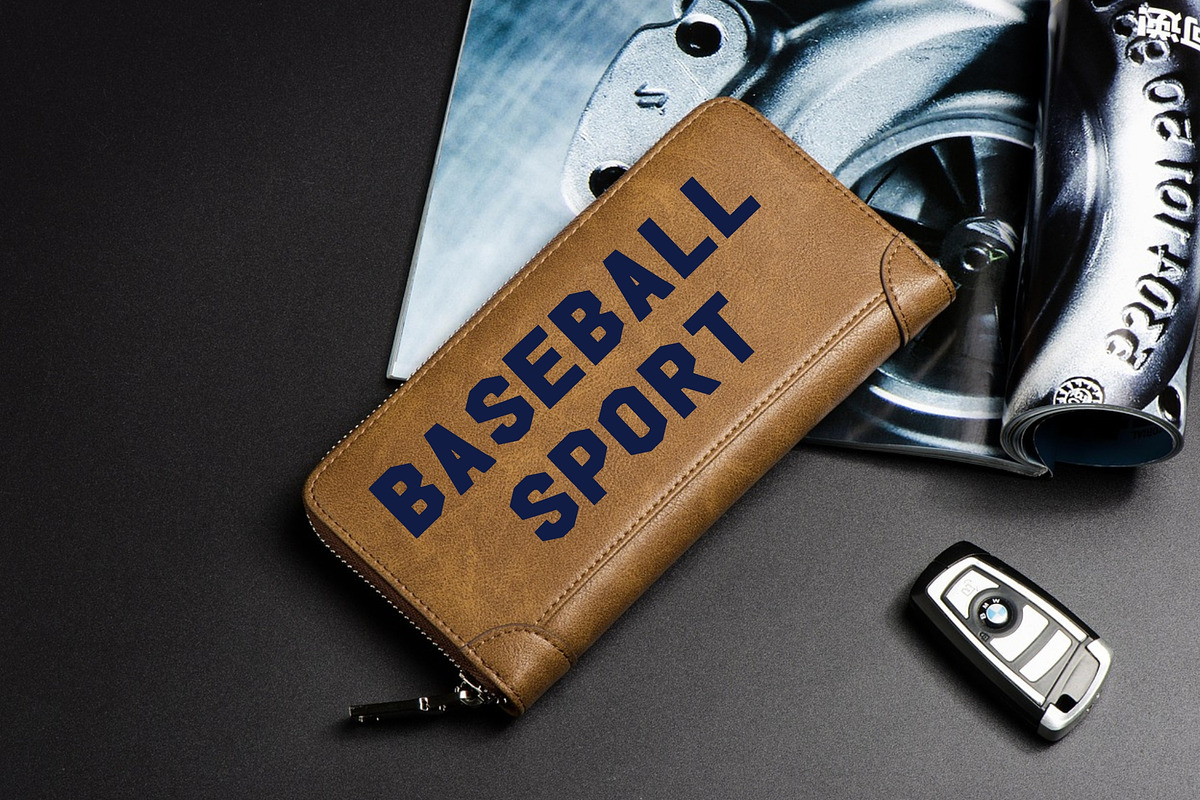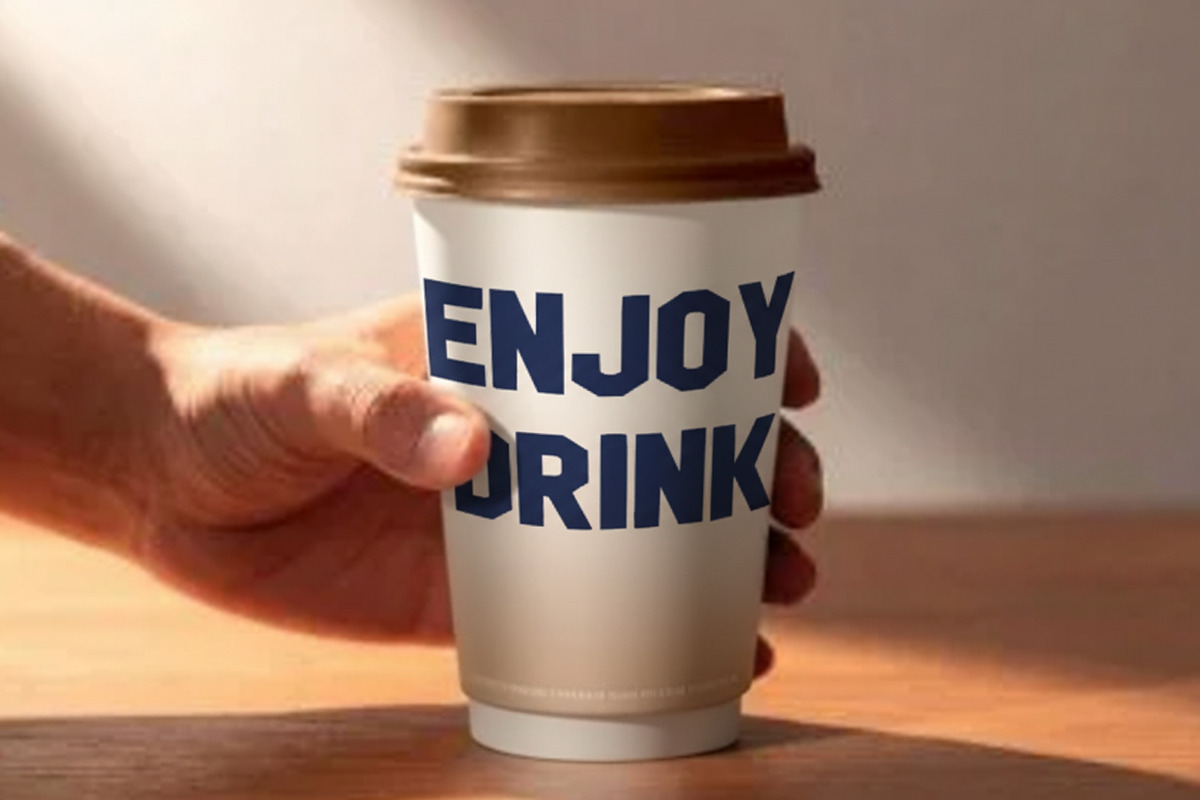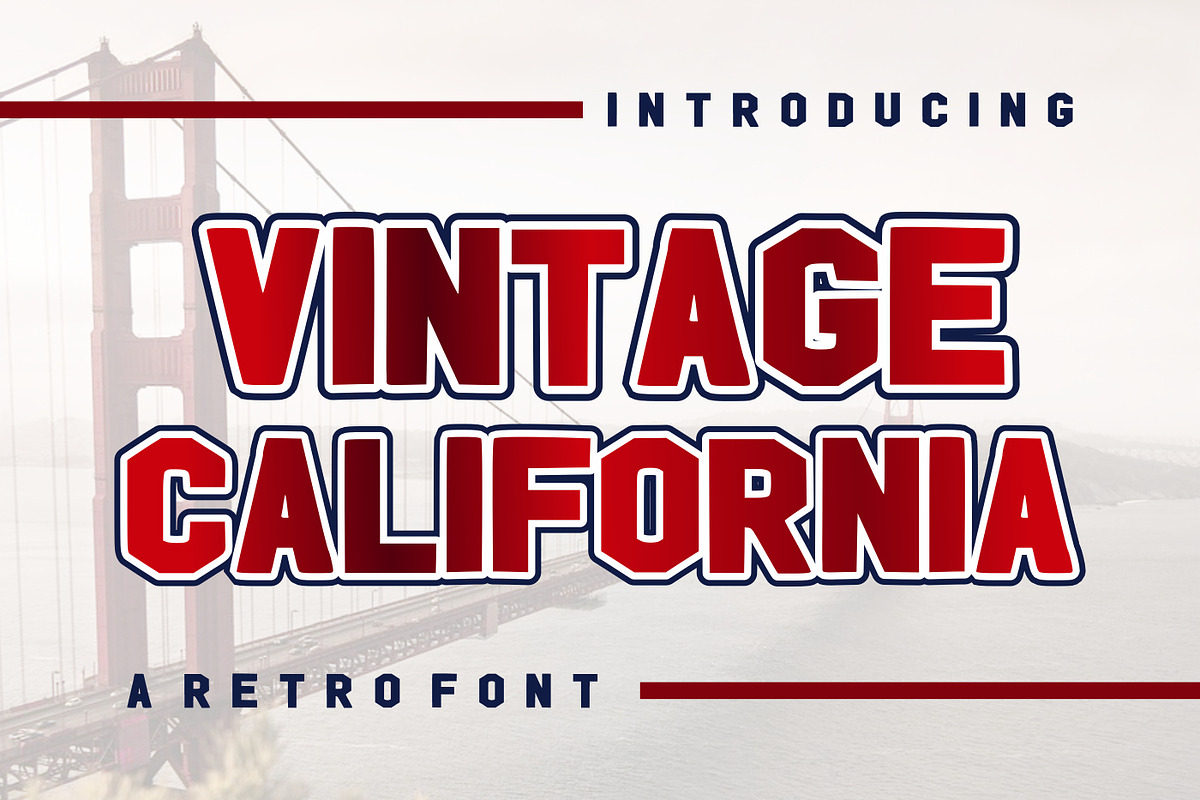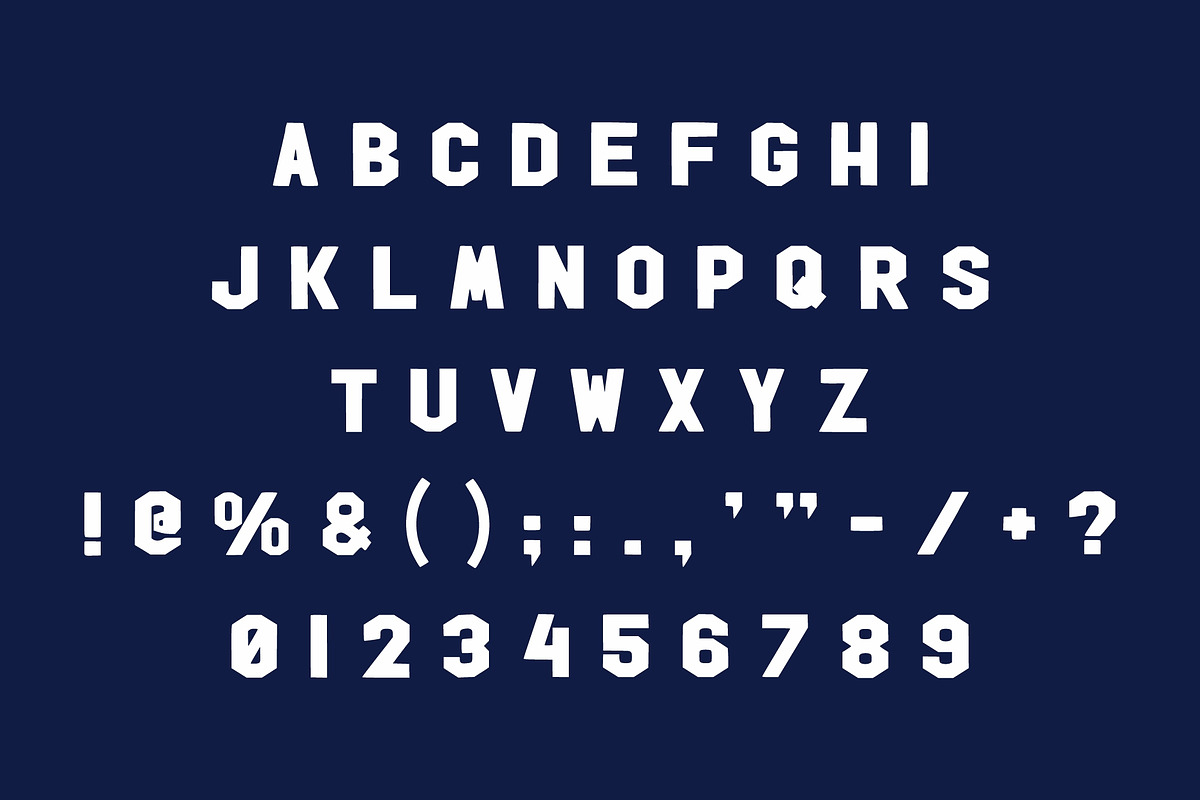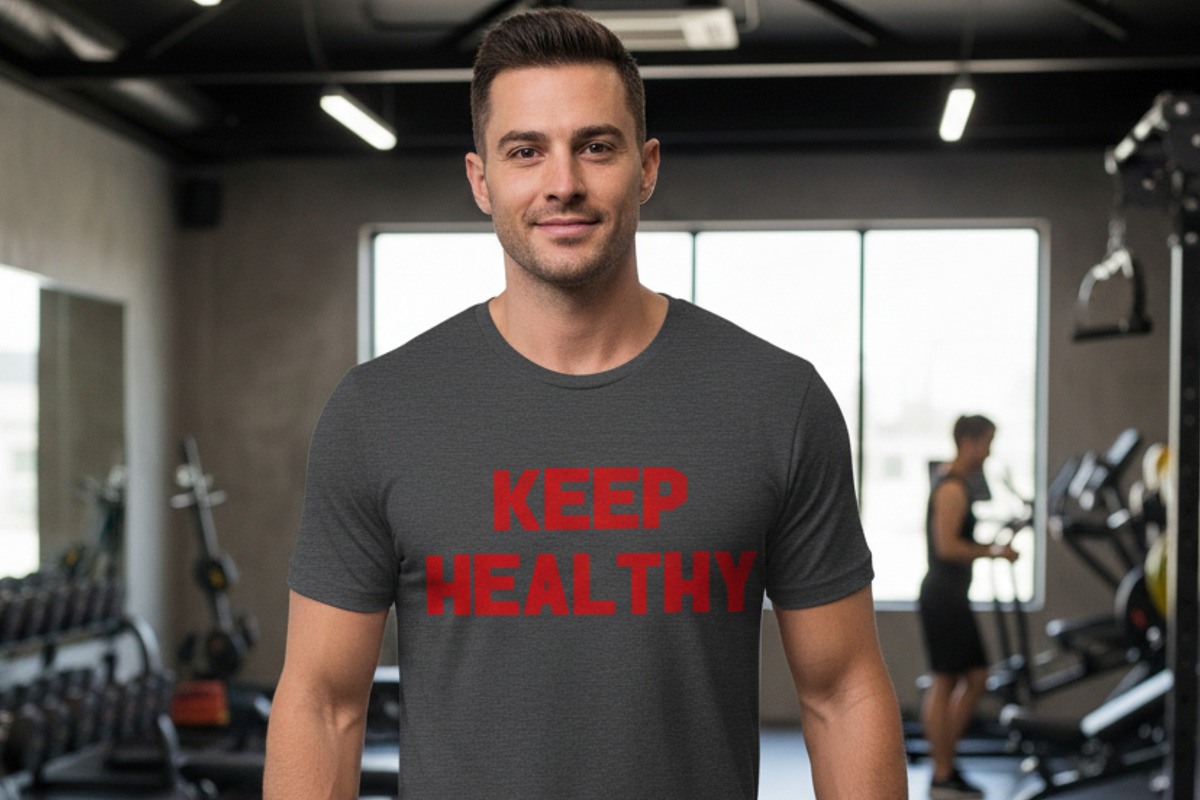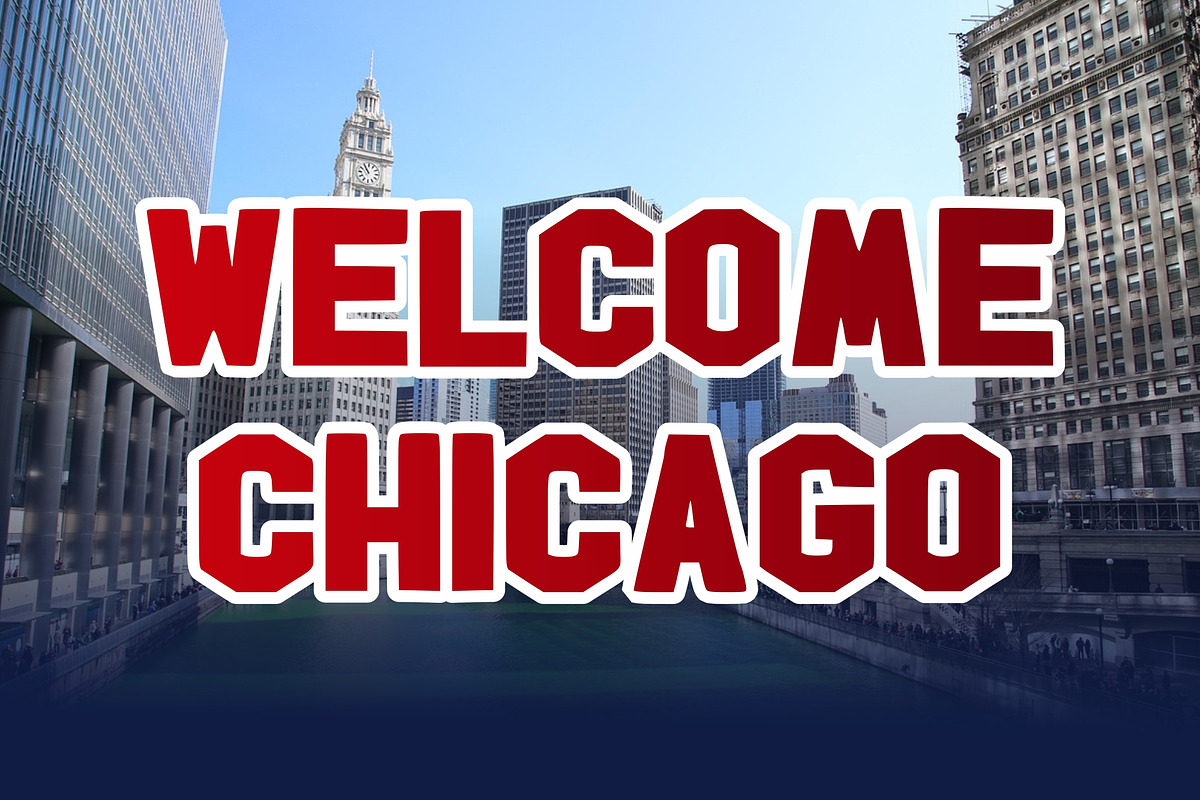
Vintage California
Vintage California is a bold retro display font inspired by classic American collegiate and varsity lettering. With its strong block shapes, layered outline style, and nostalgic West Coast vibe, this font is perfect for creating eye-catching designs that evoke a timeless vintage feel. Ideal for branding, apparel, posters, logos, and sports-themed projects, Vintage California delivers a powerful and stylish statement.